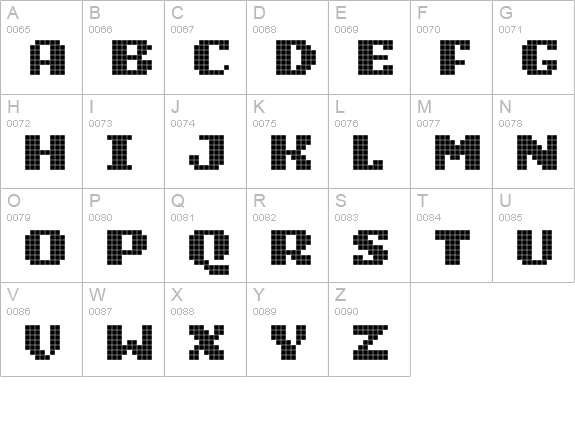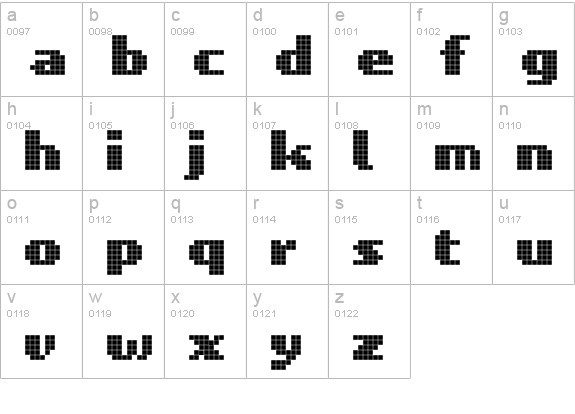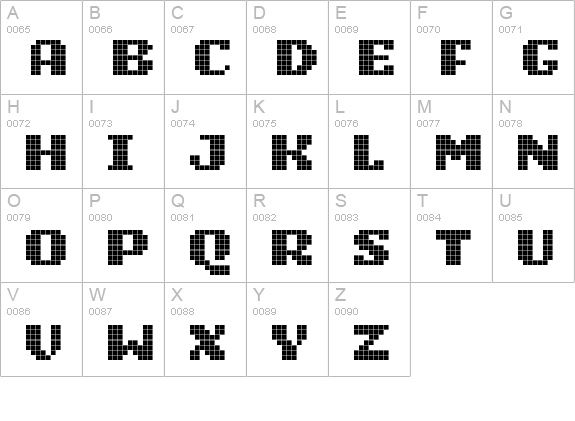
Unibody 8 Black Font Details
Unibody 8 Black is a maximum-weight, dramatic variant in the Unibody typeface family \xE2\x80\x94 well suited to maximum-impact headlines, posters, and packaging.
Unibody 8 Black font is a sleek and modern typeface that exudes sophistication and elegance. Its clean lines and bold strokes make it the perfect choice for headlines, titles, and logos. This font is not only visually striking, but it also offers excellent legibility, making it ideal for both print and digital designs. Its versatility allows it to be used in a wide range of creative projects, from branding and packaging to editorial design and advertising. One of the best aspects of Unibody 8 Black font is that it is freely available to download at FontsMarket.com. This means that designers and creatives can easily access this incredible font without any cost. With its high-quality design and the added bonus of being free, Unibody 8 Black font is a must-have for any designer looking to elevate their projects and make a lasting impression. So don't miss out on the opportunity to enhance your designs with this exceptional font, download Unibody 8 Black font for free at FontsMarket.com today!